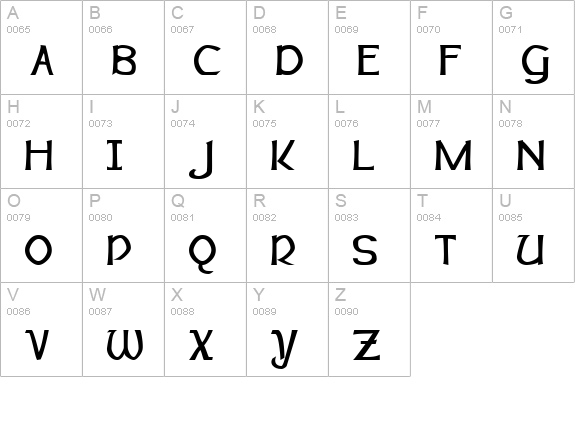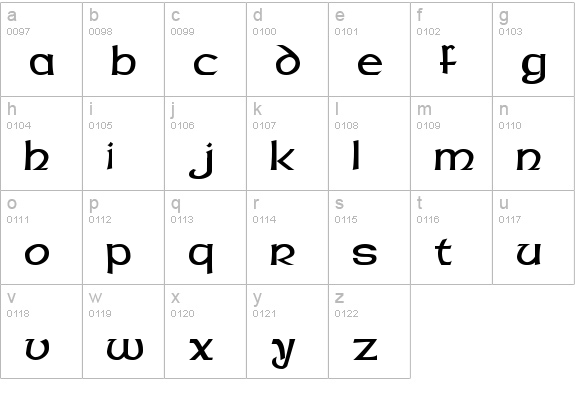
Dalelands Normal Font Details
Dalelands Normal is the standard, neutral variant in the Dalelands typeface family \xE2\x80\x94 well suited to general body text, paragraphs, and standard typographic work.
Dalelands Normal font is a versatile and elegant typeface that exudes sophistication and professionalism. With its clean lines and balanced proportions, this font is perfect for a wide range of design projects, from logos to editorial layouts. The beauty of Dalelands Normal font lies in its simplicity. The sleek and timeless design makes it suitable for both modern and classic designs, ensuring that your work will always look stylish and polished. Whether you're creating a corporate identity or designing a website, this font will add a touch of class to your project. What's even better is that Dalelands Normal font is available for free download at FontsMarket.com. Yes, you read that right – this stunning font can be yours without spending a dime. FontsMarket.com is a trusted source for high-quality fonts, and they offer a wide selection of free fonts for you to choose from. So why wait? Enhance your designs with the elegance and sophistication of Dalelands Normal font. Download it for free at FontsMarket.com and let your creativity soar.